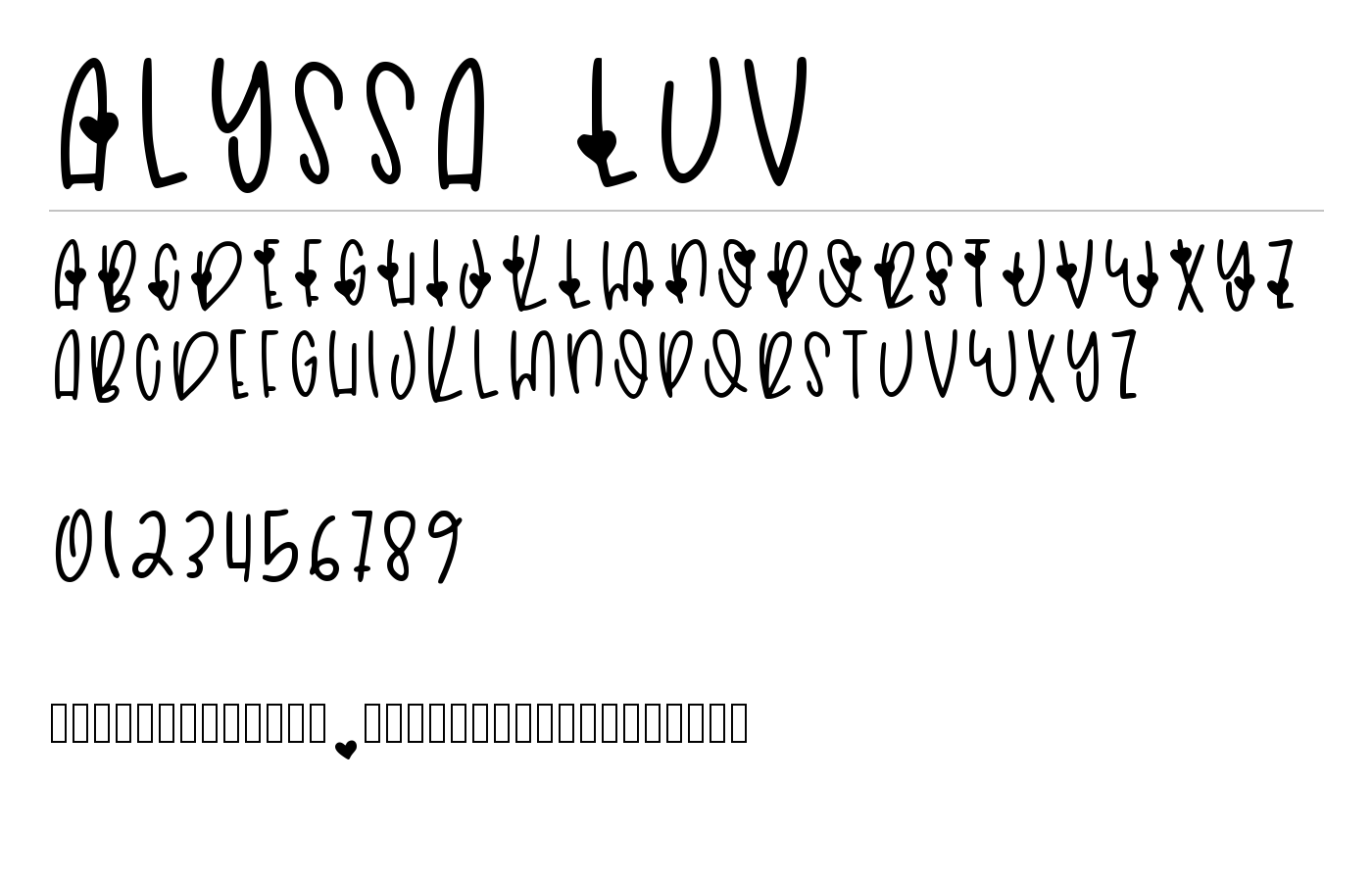
Alyssa Luv is a playful, handwritten sans serif font with tall, narrow letterforms and whimsical heart-shaped embellishments that add a charming, romantic touch. Its light weight and casual style make it perfect for informal designs, greeting cards, children’s products, and fun branding that aims to convey warmth and affection. This font works best in headlines or short phrases where its unique personality and lively character can truly stand out.
Alyssa Luv Font
About Alyssa Luv Font